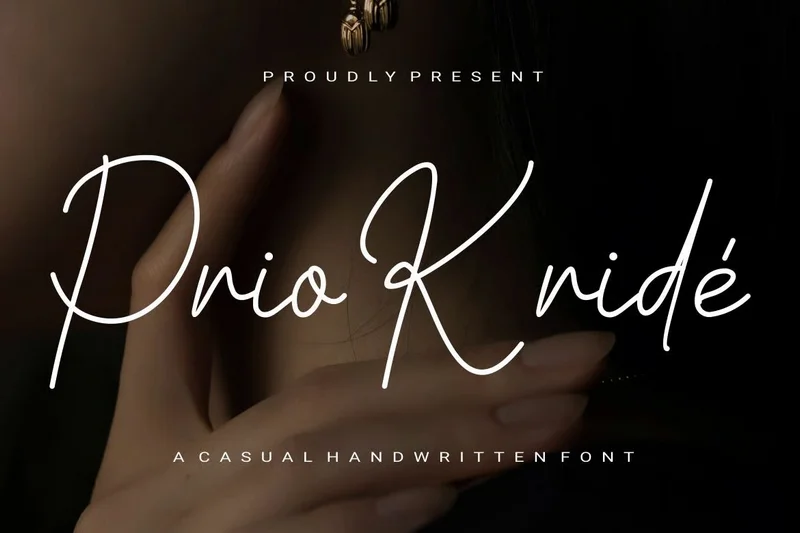
PrioKride – Script Handwritten
Introducing our new product PrioKride – Script Handwritten
PrioKride is a versatile and unique typeface that comes in a variety of styles, each with its own unique feel and character, featuring high contrast, sharp details, and classic charm. With its refined details and versatile style, it can be easily adapted for a variety of creative projects. It provides an elegant and professional look for any project.
Can be used for:
.Branding & visual identity
.Product packaging & labels
.Invitations & stationery
.Posters, flyers & marketing materials
Projects requiring a touch of elegance and prestige